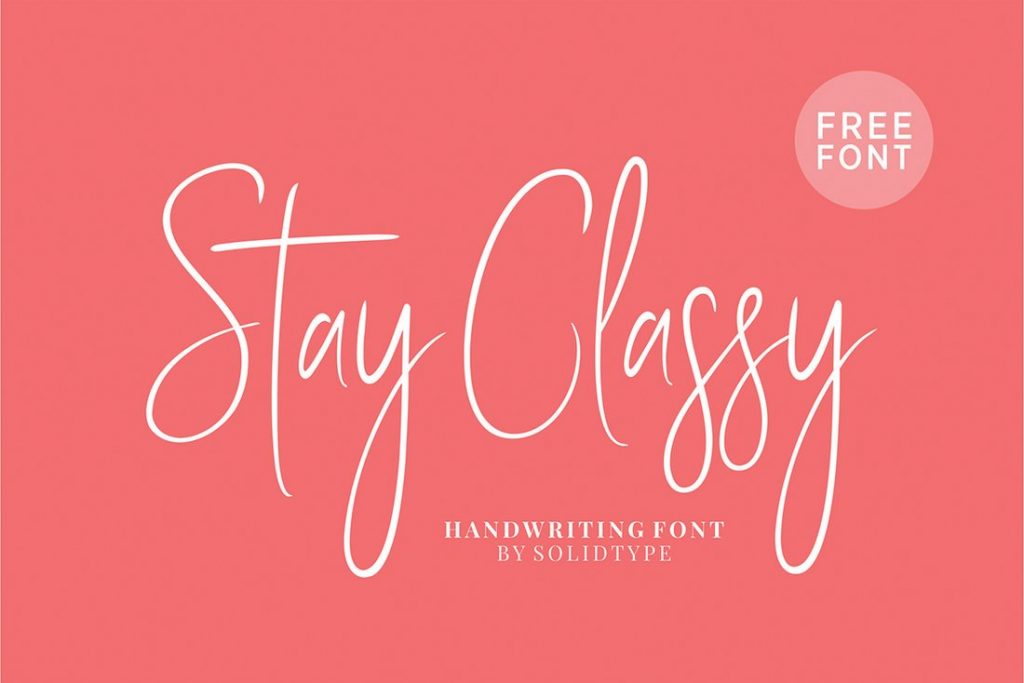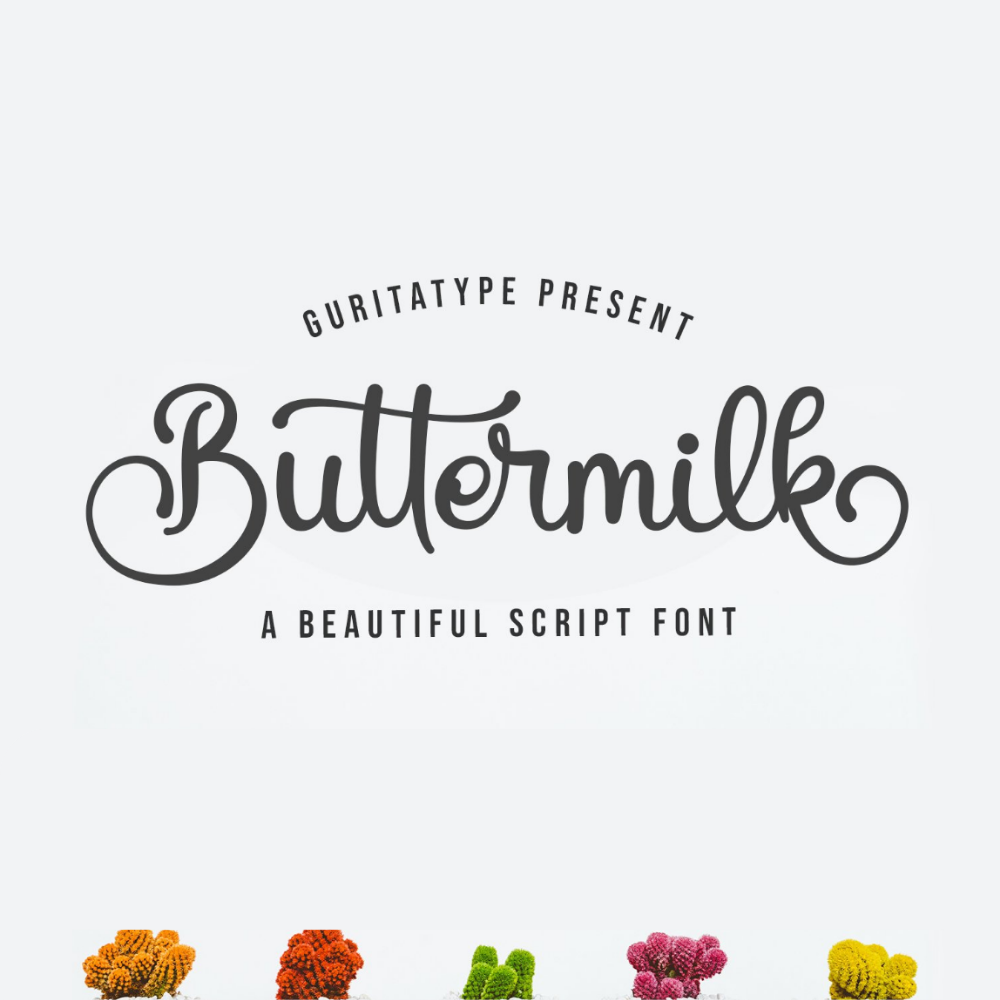
Best Cursive Fonts Reddit . If you want a handwritten typeface, it’s really best practice to create it yourself. Or start with a cursive font and altering the specific letters in the. The best microsoft word cursive font is something that is going to vary based on personal preference, so it’s hard to consider any specific font as the “best” one. Whether you’re creating a printable, an online invitation, or just need the perfect cursive font for your other canva designs, it’s hard to know where to begin. You might try writing it with a marker and scanning in and tracing. I'm impressed with scripts fonts that really utilize the features of opentype. Make a note, modernline, and adobe handwriting are the best fonts to use on this list if you’re looking for a realistic handwriting font. Now let’s jump in and take a look at some of the best cursive google fonts in the google font library! Even if you don’t have particularly good handwriting, finding someone else who does. I’ve chosen these 25 cursive fonts because they offer a diverse range of styles and.
Even if you don’t have particularly good handwriting, finding someone else who does. Or start with a cursive font and altering the specific letters in the. Make a note, modernline, and adobe handwriting are the best fonts to use on this list if you’re looking for a realistic handwriting font. I'm impressed with scripts fonts that really utilize the features of opentype. Now let’s jump in and take a look at some of the best cursive google fonts in the google font library! Whether you’re creating a printable, an online invitation, or just need the perfect cursive font for your other canva designs, it’s hard to know where to begin. The best microsoft word cursive font is something that is going to vary based on personal preference, so it’s hard to consider any specific font as the “best” one. You might try writing it with a marker and scanning in and tracing. If you want a handwritten typeface, it’s really best practice to create it yourself. I’ve chosen these 25 cursive fonts because they offer a diverse range of styles and.
Best Cursive Fonts Reddit Even if you don’t have particularly good handwriting, finding someone else who does. I’ve chosen these 25 cursive fonts because they offer a diverse range of styles and. Make a note, modernline, and adobe handwriting are the best fonts to use on this list if you’re looking for a realistic handwriting font. If you want a handwritten typeface, it’s really best practice to create it yourself. You might try writing it with a marker and scanning in and tracing. The best microsoft word cursive font is something that is going to vary based on personal preference, so it’s hard to consider any specific font as the “best” one. Whether you’re creating a printable, an online invitation, or just need the perfect cursive font for your other canva designs, it’s hard to know where to begin. Even if you don’t have particularly good handwriting, finding someone else who does. Or start with a cursive font and altering the specific letters in the. I'm impressed with scripts fonts that really utilize the features of opentype. Now let’s jump in and take a look at some of the best cursive google fonts in the google font library!
15+ best cursive fonts for branding and logos (Free and premium) Desircle Best Cursive Fonts Reddit Or start with a cursive font and altering the specific letters in the. Whether you’re creating a printable, an online invitation, or just need the perfect cursive font for your other canva designs, it’s hard to know where to begin. The best microsoft word cursive font is something that is going to vary based on personal preference, so it’s hard. Best Cursive Fonts Reddit.
30+ Best Script & Cursive Fonts 2021 Theme Junkie Best Cursive Fonts Reddit Make a note, modernline, and adobe handwriting are the best fonts to use on this list if you’re looking for a realistic handwriting font. The best microsoft word cursive font is something that is going to vary based on personal preference, so it’s hard to consider any specific font as the “best” one. I'm impressed with scripts fonts that really. Best Cursive Fonts Reddit.
cursive fonts Archives Hipsthetic Best Cursive Fonts Reddit I’ve chosen these 25 cursive fonts because they offer a diverse range of styles and. The best microsoft word cursive font is something that is going to vary based on personal preference, so it’s hard to consider any specific font as the “best” one. If you want a handwritten typeface, it’s really best practice to create it yourself. You might. Best Cursive Fonts Reddit.
35+ Best Cursive Fonts For Your Logo and Branding Best Cursive Fonts Reddit If you want a handwritten typeface, it’s really best practice to create it yourself. You might try writing it with a marker and scanning in and tracing. I’ve chosen these 25 cursive fonts because they offer a diverse range of styles and. The best microsoft word cursive font is something that is going to vary based on personal preference, so. Best Cursive Fonts Reddit.
20 Beautiful Cursive & Handwritten Fonts to Download Hongkiat Best Cursive Fonts Reddit Whether you’re creating a printable, an online invitation, or just need the perfect cursive font for your other canva designs, it’s hard to know where to begin. If you want a handwritten typeface, it’s really best practice to create it yourself. I'm impressed with scripts fonts that really utilize the features of opentype. Now let’s jump in and take a. Best Cursive Fonts Reddit.
30+ Best Cursive & Script Fonts Best Cursive Fonts Reddit I'm impressed with scripts fonts that really utilize the features of opentype. Or start with a cursive font and altering the specific letters in the. If you want a handwritten typeface, it’s really best practice to create it yourself. Even if you don’t have particularly good handwriting, finding someone else who does. Whether you’re creating a printable, an online invitation,. Best Cursive Fonts Reddit.
17 Best Cursive Calligraphy Fonts in 2023 Cursive calligraphy fonts Best Cursive Fonts Reddit Make a note, modernline, and adobe handwriting are the best fonts to use on this list if you’re looking for a realistic handwriting font. I’ve chosen these 25 cursive fonts because they offer a diverse range of styles and. Or start with a cursive font and altering the specific letters in the. Even if you don’t have particularly good handwriting,. Best Cursive Fonts Reddit.
25 of the Best Calligraphy Fonts (+ Top Free Picks!) Best Cursive Fonts Reddit Whether you’re creating a printable, an online invitation, or just need the perfect cursive font for your other canva designs, it’s hard to know where to begin. The best microsoft word cursive font is something that is going to vary based on personal preference, so it’s hard to consider any specific font as the “best” one. If you want a. Best Cursive Fonts Reddit.
Top 20 Popular Cursive Fonts Best Cursive Fonts on the Best Cursive Fonts Reddit The best microsoft word cursive font is something that is going to vary based on personal preference, so it’s hard to consider any specific font as the “best” one. I'm impressed with scripts fonts that really utilize the features of opentype. Even if you don’t have particularly good handwriting, finding someone else who does. Now let’s jump in and take. Best Cursive Fonts Reddit.